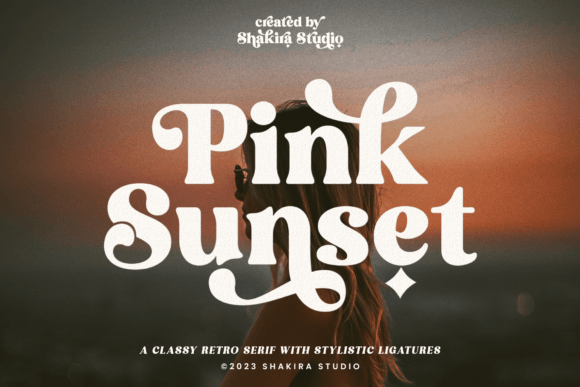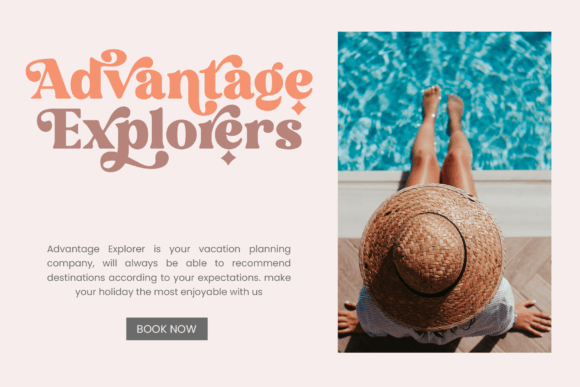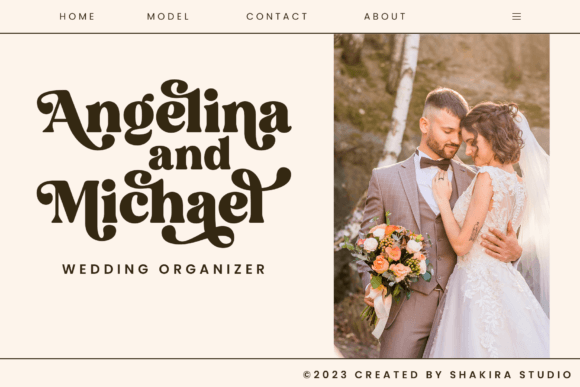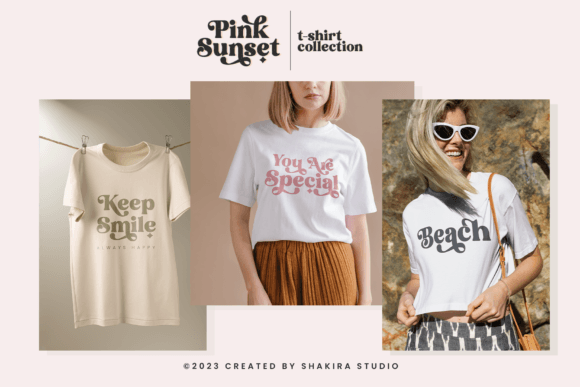
Pink Sunset Font: Groovy Vintage Typography for Retro Branding
About the Pink Sunset Font
Add a touch of class to your work with the Pink Sunset Font, a truly exceptional typeface. Pink Sunset is a stylish font It has both a modern and retro look – clear, modern, and fun. Helps to create layout design in the 60s or 70s design projects.
This font has more than 50 unique alternatives and ligatures that give your logo, business card, and other project a unique vintage look. It has an Italic version too so what a perfect vintage font!
Pink Sunset’s retro-modern aesthetic makes it ideal for headlines, short-form text in posters and branding materials, and packaging design where a touch of vintage flair is desired. Its playful energy is well-suited to projects with a youthful or nostalgic feel, such as clothing brands or food packaging evoking the 60s and 70s. However, avoid using it for body text or UI elements; its decorative nature reduces readability in long passages.
Pairing Pink Sunset effectively requires considering its distinct personality. A clean sans-serif like Montserrat or a geometric sans-serif such as Futura would create a balanced and contemporary contrast. For a warmer feel, a serif typeface like Playfair Display could enhance its vintage charm. Avoid pairing it with overly ornate scripts, which could clash with its balanced structure.
Pink Sunset projects a fun, slightly bold, and undeniably retro personality. Its versatility allows it to communicate a range of moods, from cheerful and optimistic to slightly rebellious and nostalgic, depending on the chosen context and supporting imagery.
Pink Sunset Font Usage Examples
Pink Sunset Font Example